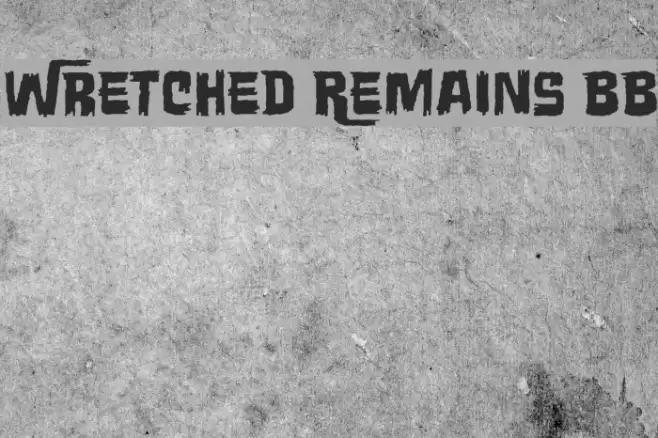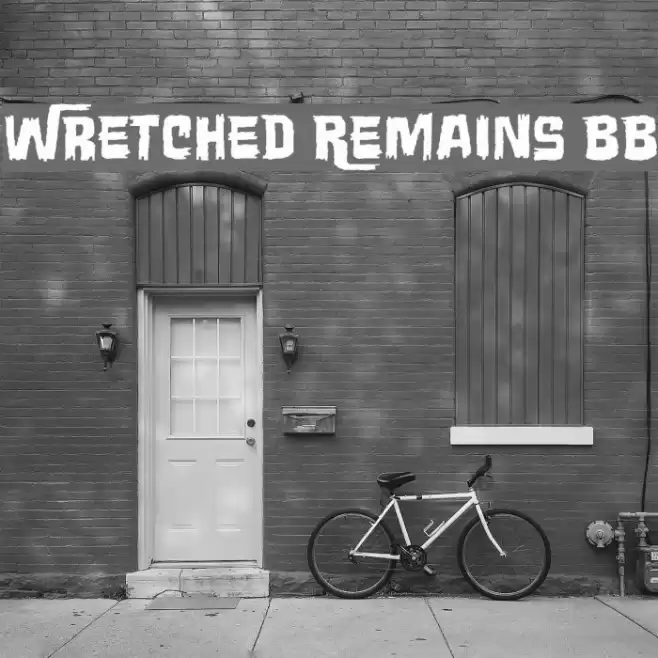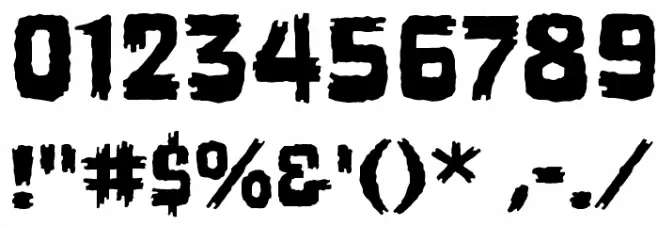
Wretched Remains BB Font
Wretched Remains BB Description
This font exhibits a rugged and distressed style, characterized by its jagged edges and uneven strokes, reminiscent of worn-out or decayed materials. The uppercase and lowercase letters maintain a consistent rough texture, giving it a raw and gritty appearance. The numerals and special characters follow the same aesthetic, ensuring a cohesive look across all glyphs. This font's unique design makes it stand out, ideal for projects that require a bold and edgy statement. Its irregular form and high contrast between thick and thin strokes add to its dramatic and impactful presence.
A rugged, distressed font with jagged edges and high contrast strokes from Uncategorized fonts.
- Proposed Projects: Ideal for horror-themed posters, album covers, video game titles, and edgy branding materials.